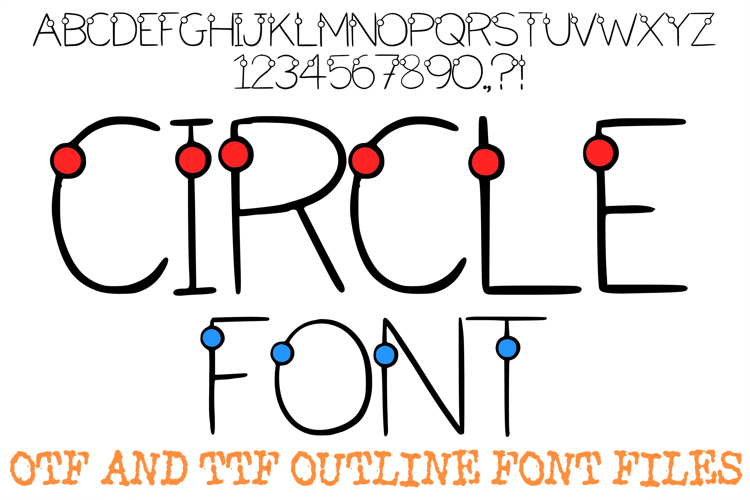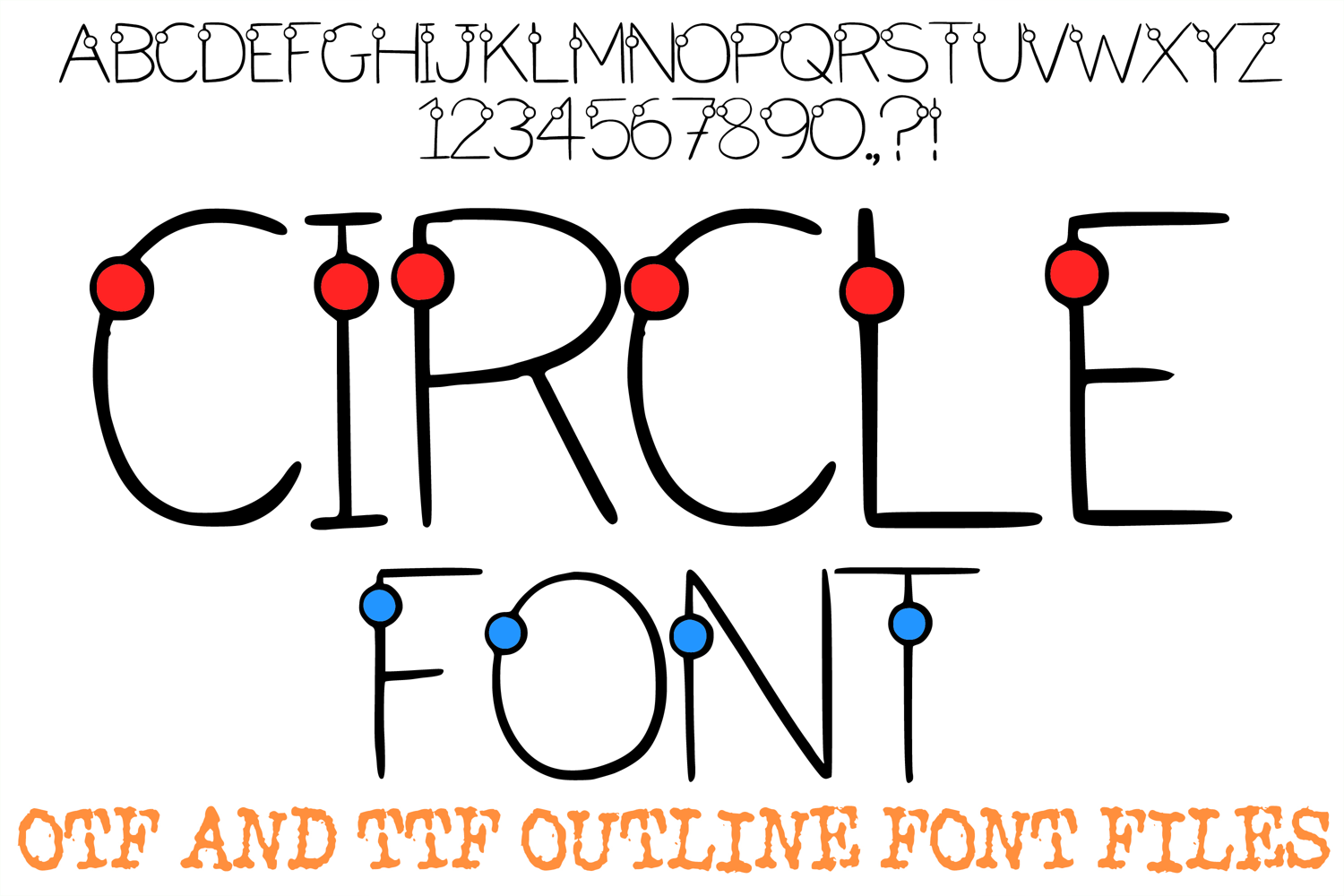
Embrace a charming mix of modern minimalism and playful geometric detail with the Circle Font. This beautifully delicate display typeface features ultra-thin, elongated hand-drawn line shapes uniquely accented by a single hollow circle threaded directly onto each character's stem or curve. Striking a perfect balance between fine-line art and quirky geometry, this light, airy alphabet mimics the look of delicate wire crafts, modern architectural diagrams, or dainty minimalist jewelry. It is an exceptional choice for headlines, logos, and layouts that require a contemporary, stylized look.
Delivered as installable OTF and TTF font files, this clean outline structure provides incredible creative versatility. It serves as a wonderful resource for a designer who wants to overlay custom color pops inside the accent circles, add a glowing neon effect, or contrast the skinny lines against dark, solid backdrops. The crisp, geometric linework scales effortlessly across all major graphics programs, ensuring sharp, polished results for digital creations and physical print media alike.